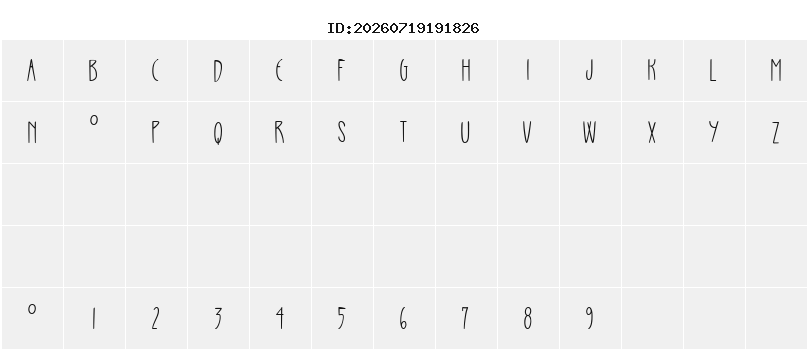
• Font Name: CAVIAR DE LAPIN BLANC
• Manufacturer: Maelle.K
About CAVIAR DE LAPIN BLANC.ttf
CAVIAR DE LAPIN BLANC.ttf is a modern, elegant sans-serif font designed for ultimate readability and visual harmony. Perfect for branding, headlines, web design, and print materials.